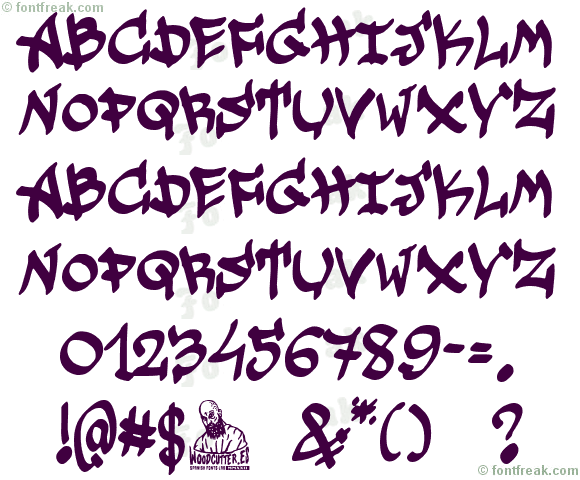
Underground Graffiti
About Underground Graffiti
The "Underground Graffiti" font by woodcutter Manero is a striking display typeface that embodies the raw energy and vibrancy of urban street art. This font falls into the decorative category, characterized by its bold, edgy design that captures the essence of graffiti culture. With its irregular stroke weight and playful, jagged edges, the font exudes an informal and rebellious spirit, making it perfect for those looking to make a statement.
Visually, the "Underground Graffiti" font features a strong contrast between thick and thin strokes, lending it a dynamic quality that draws attention. The spacing is thoughtfully designed, ensuring readability while maintaining a sense of spontaneity that is emblematic of graffiti. Decorative elements, such as sharp corners and exaggerated letterforms, enhance its distinctive character, making it a versatile choice for various creative projects.
This font is particularly well-suited for use in vibrant contexts such as concert posters, urban art exhibitions, skateboarding brand promotions, and youth-oriented marketing campaigns. Graphic designers looking to infuse their projects with an edgy urban flair will find this font an ideal choice. Additionally, small business owners in the streetwear or skate culture sectors can leverage this font to create eye-catching logos and promotional materials that resonate with their target audience.